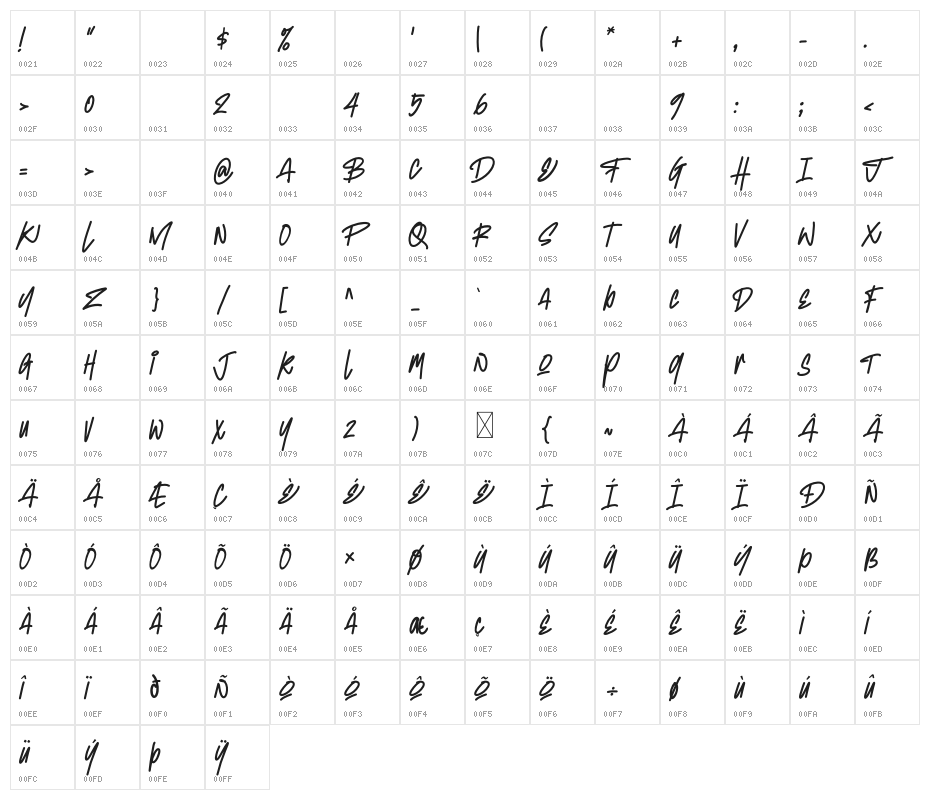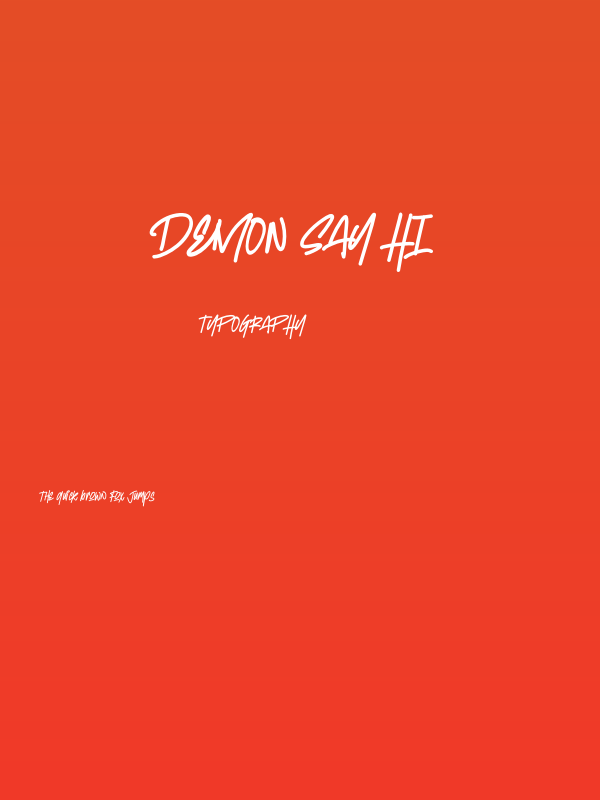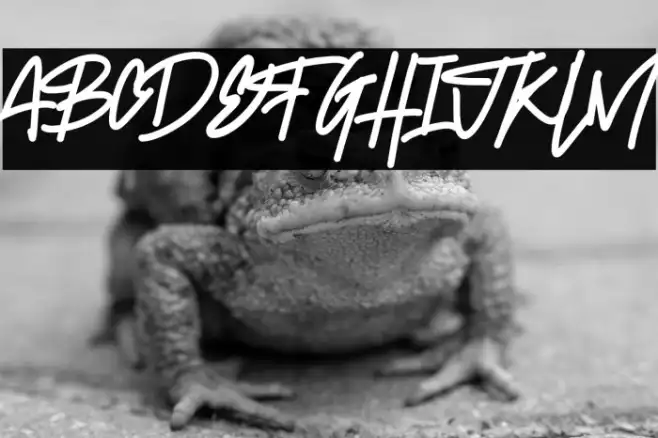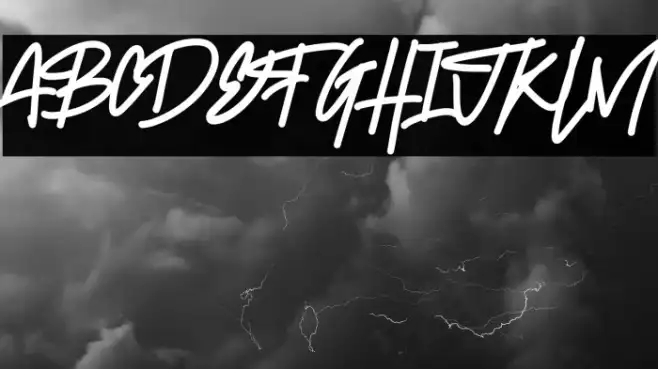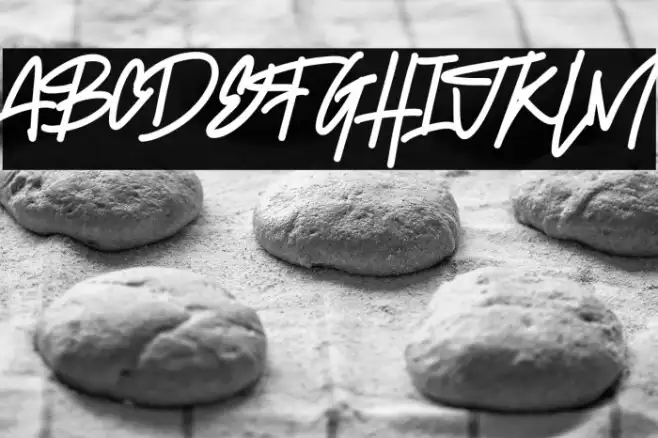
Demon Say Hi Font
Demon Say Hi Description
This font exudes a dynamic and energetic vibe with its bold, flowing strokes that mimic the fluidity of handwriting. The letters are slightly slanted, adding a sense of motion and urgency. Each character is distinct yet cohesive, maintaining a consistent style throughout. The uppercase and lowercase letters are well-balanced, with the uppercase being slightly more pronounced. Numbers and special characters follow the same handwritten style, ensuring uniformity. The overall appearance is casual yet impactful, making it suitable for projects that require a personal touch.
| Proposed Projects | Ideal for branding, posters, social media graphics, and any design needing a personal, energetic touch. |